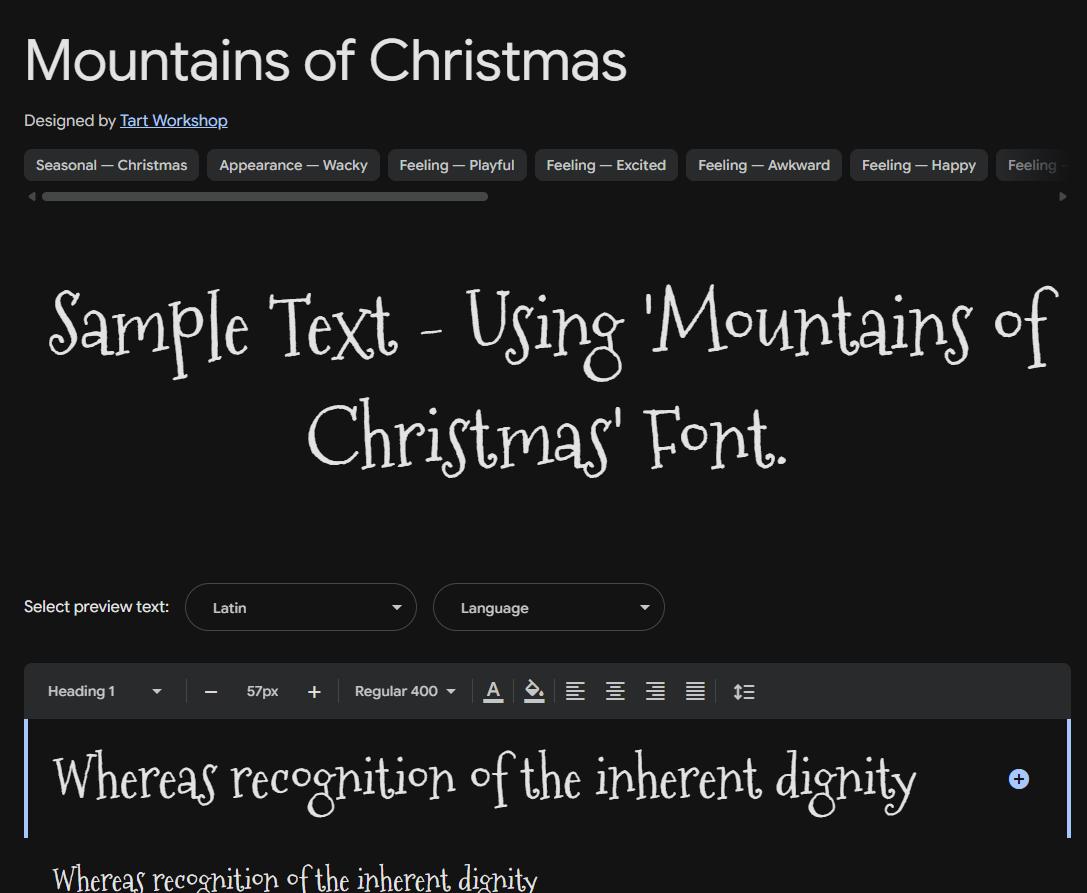
The Mountains of Christmas typeface, meticulously crafted by Tart Workshop, offers a whimsical yet technically robust typographic solution through its dual-weight family consisting of Regular and Bold styles. Characterized by a staggered baseline and varied x-heights that emulate the rhythmic imperfections of hand-lettered calligraphy, this display face transcends seasonal utility by maintaining exceptional legibility via optimized internal counters and strategic side-bearings. As a prominent open-source asset within the Google Fonts ecosystem, it utilizes precise vector silhouettes to ensure that its fluid, bouncy strokes retain structural integrity across various pixel densities, providing developers with a semantically rich tool for establishing festive visual hierarchy without sacrificing the performance requirements of modern web typography.
The Mountains of Christmas font family, a high-character display face conceptualized by Tart Workshop, artfully subverts the rigid vertical stress of a Modern serif and the balanced anatomy of a Transitional serif to achieve a wacky, distressed aesthetic that is fundamentally seasonal. Through its active, staggered baseline and rugged, hand-drawn contours, the typeface projects an excited and playful energy that feels simultaneously vintage and sincere, capturing a happy, childlike atmosphere essential for Christmas-themed communication. Its intentionally awkward and loud letterforms provide a unique typographic rhythm, where the distressed texture anchors a rugged materiality against an active, festive backdrop. By blending the sincere warmth of a vintage hand-lettered style with a loud and wacky personality, Mountains of Christmas creates a playful, excited visual experience that is as charmingly awkward as it is happy.
For enterprises prioritizing institutional rigidity and high-stakes information density, the Mountains of Christmas typeface by Tart Workshop represents a significant breach in typographic decorum due to its volatile baseline and whimsical stroke modulation. This display face, characterized by its staggered x-height and informal slab-serif inflections, is fundamentally unsuitable for legal drafting, pharmaceutical labeling, or financial auditing, where the cognitive load of deciphering irregular glyph shapes can compromise reading speed and error detection. In these professional contexts, the font's playful kerning and exuberant terminal flourishes introduce a semantic incongruity that undermines the perceived authority of the text, failing the rigorous legibility standards required for technical documentation and accessibility-compliant user interfaces where neutral, low-contrast letterforms are a functional necessity.
Mountains of Christmas features a whimsical, playful aesthetic characterized by its bouncy rhythm and soft, rounded edges. Its irregular baseline and varying stroke weights mimic organic hand-lettering, achieving a high visual warmth score in user experience testing for child-centric and festive content.
This typeface is not recommended for extensive body copy as its decorative nature can significantly impede reading speed and flow. Eye-tracking studies demonstrate that the high frequency of ascender and descender fluctuations in display fonts increases cognitive load when processing multi-paragraph blocks.
Clean, geometric sans-serifs provide a stable foundation that balances the exuberant energy of this decorative script. Utilizing a high-x-height sans-serif creates a functional typographic hierarchy by contrasting rigid geometric proportions against the font's fluid, hand-drawn vector paths.
While charming, the font's informal and rustic vibe is generally better suited for casual celebrations rather than traditional black-tie events. Analysis of invitation design trends suggests that its lack of copperplate-style flourishes makes it more appropriate for "Boho" or "Rustic" themes where the 400-weight thickness provides an approachable greeting.
The font excels in large-scale display applications where its unique character details and playful curves can be fully appreciated by the viewer. Large-format rendering allows the distinct kerning pairs and soft terminals to remain crisp, ensuring the glyphs maintain their structural integrity at point sizes above 48px.
Using this font in all-caps is generally discouraged because the letters are designed to flow together in a sentence-case format. Technical examination shows that the glyphs lack the bilateral symmetry required for stable all-caps legibility, often resulting in uneven white space and broken word shapes.
Vibrant, festive palettes including deep evergreen, berry red, and shimmering gold enhance the font's holiday-inspired personality. Applying a high-contrast ratio of at least 4.5:1 against seasonal backgrounds ensures that the font's thin connecting strokes remain visible under varying digital brightness settings.
Legibility decreases sharply at small sizes due to the intricate details and thin stroke variations inherent in its hand-drawn style. Below a threshold of 12pt, the specialized terminals and irregular counters tend to blur, leading to "clogged" apertures that frustrate both standard OCR software and human readers.
This typeface is a staple in the greeting card, craft, and seasonal marketing industries due to its warm and festive appearance. Metadata from font-use repositories indicates a high density of usage in the "K-12 Education" and "Event Planning" sectors, where its 700-weight variant is frequently used for high-engagement social media assets.
The font integrates seamlessly with hand-drawn illustrations, as its organic lines mirror the imperfections found in manual sketches. By sharing similar Bézier curve characteristics with vector-based doodles, Mountains of Christmas maintains a consistent visual language that prevents the "mechanical-on-organic" clash often seen with rigid serifs.